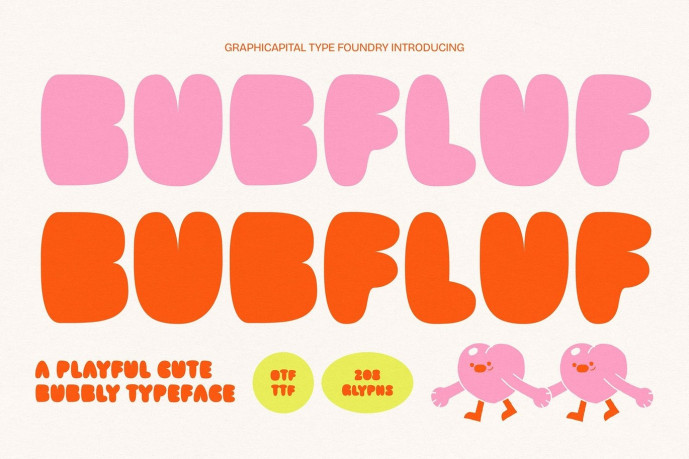
Bubfluf Font
Designer: Graphicapital
Bubfluf is a playful bubble-style display font with thick, rounded letterforms that create a soft, energetic, and cheerful look. Its bubbly silhouette makes it perfect for fun, bold, and eye-catching designs.
Ideal for branding, posters, headlines, packaging, album art, game visuals, and promotional designs. It adds personality to any creative project and helps your message stand out effortlessly.